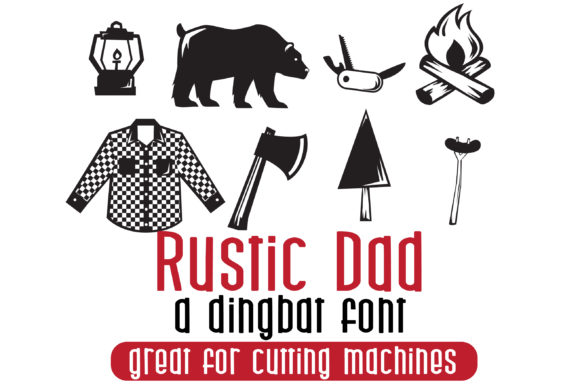
Prepare yourself for an adventure into the great outdoors, where your designs will embark on a camping expedition like no other! Introducing Rustic Dad Font, a playful and captivating dingbat font that will ignite the adventurer within. This pixel-perfect font captures the essence of all things dad, with charming camping-themed icons that will add a touch of whimsy to your creative projects.
Crafted by the talented team at Illustration Ink, Rustic Dad Font is not just a font; it's a celebration of fatherhood and the great outdoors. Each icon has been lovingly designed to reflect the spirit of camping, from the crackling campfire to the towering pine trees. With 26 unique images at your disposal, you'll have everything you need to create engaging designs that will stand out from the crowd.
Rustic Dad Font is more than just a collection of icons; it's an invitation to explore your creativity and connect with the world around you. Whether you're creating custom greeting cards, designing social media posts, or crafting personalized gifts, Rustic Dad Font will add a touch of adventure to every project.
Imagine the smiles on your loved ones' faces as they receive a heartfelt message written in Rustic Dad Font. With its playful icons and charming aesthetic, this font will make every design a memorable experience.
So, gather your creative gear, lace up your hiking boots, and embark on a design journey with Rustic Dad Font. Let your imagination run wild and create designs that will inspire, delight, and leave a lasting impression.